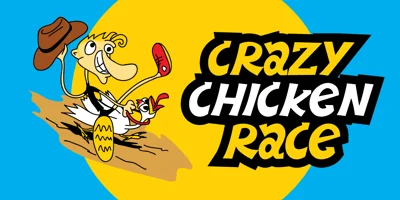
Crazy Cartoon
Crazy Cartoon Font
The Crazy Cartoon Font is a wonderfully wild and energetic display typeface, characterized by its exaggerated, bouncy forms and a distinctly whimsical, over-the-top charm. Imagine its lively characters dominating the titles of animated children's shows, adding an outrageous and quirky touch to toy packaging, or creating hilarious headlines for comic books and graphic novels. Its distorted shapes, often with a hand-drawn or slightly irregular feel, also make it an excellent choice for unique greeting cards, wildly fun party invitations, playful social media graphics, and any design where a lighthearted, imaginative, and wildly approachable feel is desired. Whether you're aiming for a zany, silly look or a distinctly artistic touch with an unconventional flair, Crazy Cartoon Font delivers with its undeniable personality, ensuring your visuals are both inviting and truly memorable.
What makes Crazy Cartoon Font so exciting is its ability to infuse designs with immediate joy and a sense of boundless, unhinged imagination, breaking free from traditional elegance and restraint. In a visual landscape that often benefits from a touch of outrageous fun, this font offers a refreshing alternative that captures attention with its distinctive and energetic letterforms. It’s more than just a typeface; it’s a tool for storytelling, allowing designers to convey warmth, playfulness, and a sense of adventure effortlessly. This font excels at creating an emotional connection with the audience, making content feel more accessible and enjoyable, particularly for younger demographics or projects with a whimsical theme. Designers will find it an invaluable asset for creative projects that require a unique visual identity that truly stands out from the crowd.
The Crazy Cartoon Font family is typically designed to offer a delightful range of styles, enhancing its versatility across various creative applications. Beyond the foundational Crazy Cartoon Regular typeface, you might discover playful companion styles such as a slightly bolder Crazy Cartoon Bold for stronger emphasis, or subtle Crazy Cartoon Outline or Crazy Cartoon Shadow versions that add a different visual texture and dimension. Given its whimsical and often cartoon-inspired nature, the family may also include unique ligatures, alternate characters, or dingbats that perfectly complement its overall character, allowing for even greater customization. These diverse family members provide designers with the flexibility to craft engaging typographic compositions, ensuring visual consistency and maximum creative expression from prominent titles to smaller decorative elements, all while maintaining the font’s inherent charm.